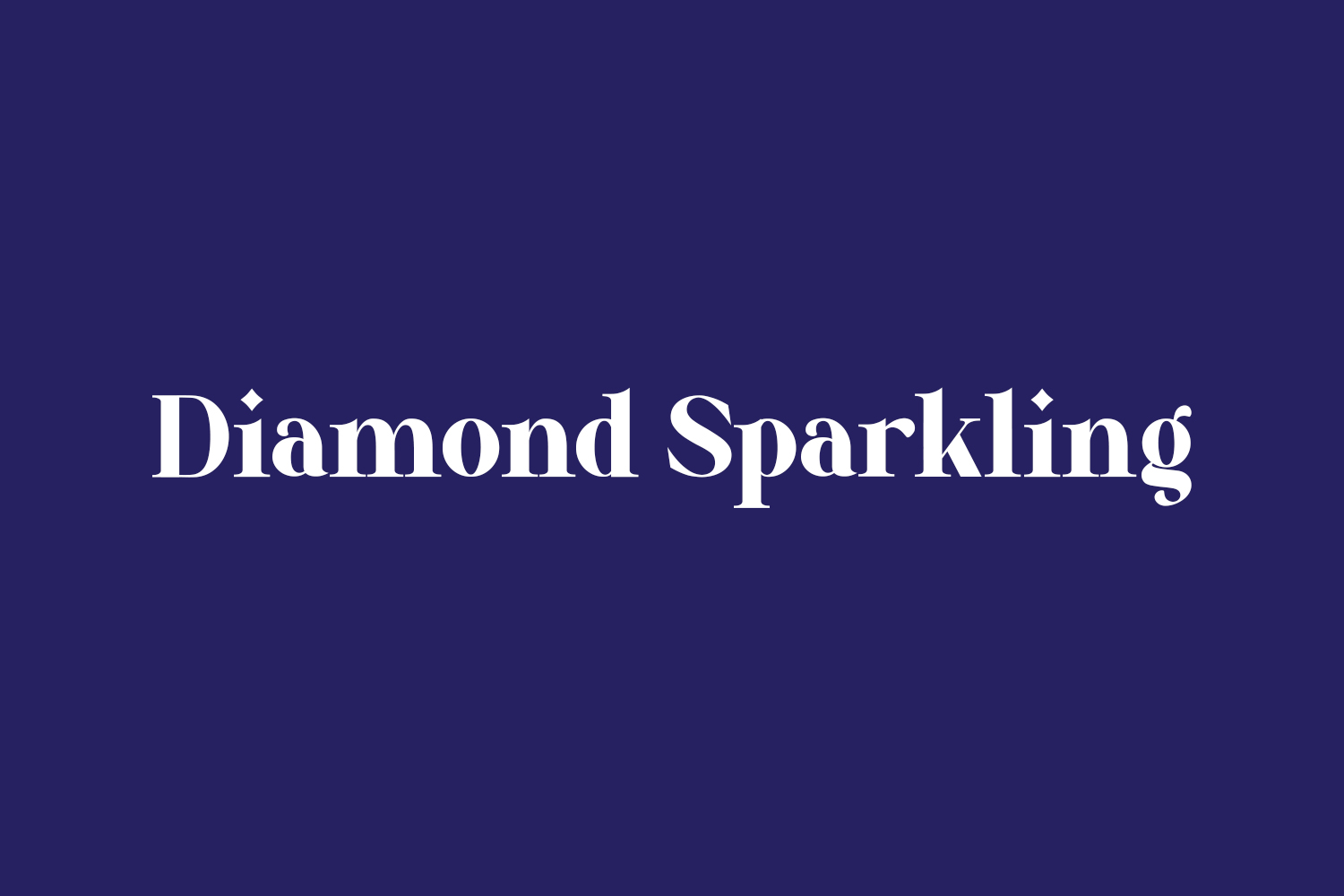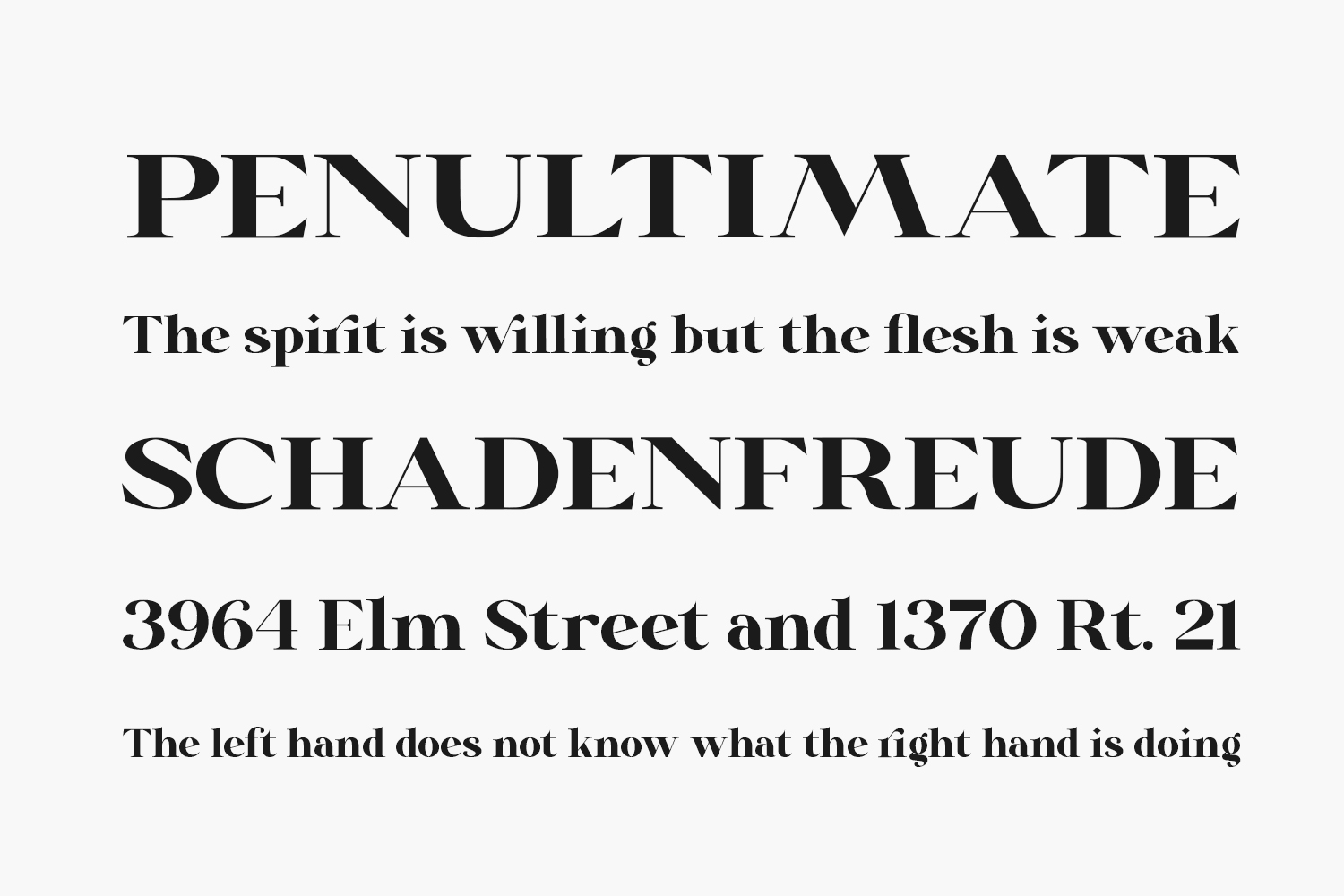
Diamond Sparkling Free Font Family is an elegant serif font. Use it to make your ideas even more realistic and create spectacular designs. Diamond Sparkling Free Font was designed by Letterena Studios and is free for personal use only. Please purchase the full version for commercial use.